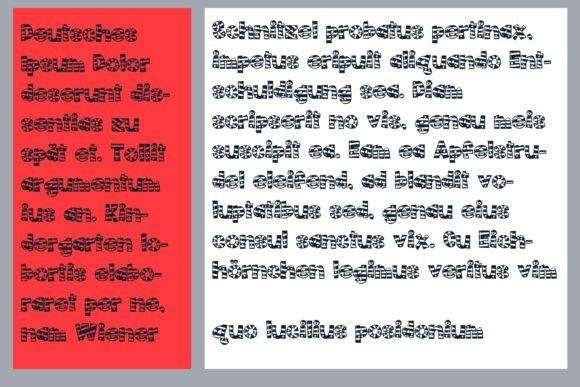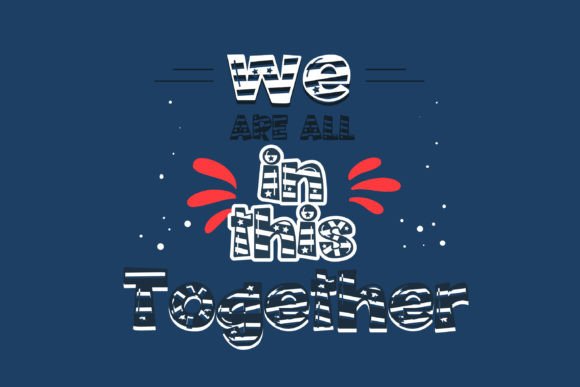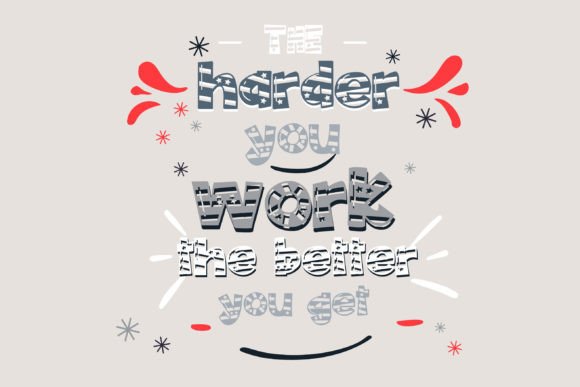
Unleashing the Magic of Hand-Crafted Fonts
Have you ever stared at a blank page, searching for the perfect font to bring your design to life? I know I have. It’s that moment of creative paralysis when you’re desperate for inspiration. For me, it usually starts with a spark – a glimpse of something unique and eye-catching that sets my imagination racing. And that’s exactly what happened when I discovered the enchanting Goblin Glory Font.
This hand-crafted sans serif font is a true gem, featuring stars and stripes that add a touch of whimsy to any design. Its purpose is to evoke a sense of playfulness and informality, making it perfect for invitations, greeting cards, and other projects where you want to add a personal touch. As a designer, you’ll appreciate the value of Goblin Glory Font in its ability to add a human touch to your work.
Goblin Glory Font Key Features
- Unique Characteristics: Distinctive goblin-inspired design, featuring intricate details and bold lines, perfect for fantasy and medieval-themed projects
Goblin Glory Font Review
Overall, I have mixed feelings about the “Goblin Glory Font”. While it has some great qualities, it also has some limitations that may make it less suitable for certain projects.
- The font has a unique and whimsical feel that can add a touch of fantasy to any design.
- The bold lines and intricate details make it perfect for creating eye-catching headlines and titles.
- The font is highly customizable, with a wide range of style options available in the font editor.
- The font can be quite dense and may be difficult to read in large blocks of text.
- The lack of ligatures and kerning can lead to awkward spacing and alignment issues.
- The font may not be suitable for body text or longer passages of text due to its irregular spacing and letterforms.
Overall, I would recommend the “Goblin Glory Font” for projects that require a bold, attention-grabbing headline or title. However, it may not be the best choice for larger blocks of text or more formal designs.
Tips for Getting the Most Out of Goblin Glory Font
Use Goblin Glory Font to add a touch of whimsy and fantasy to your designs.
- Combine the font with bold, bright colors to create a striking visual effect.
- Experiment with different font sizes and styles to create a sense of hierarchy.
- Use the font to create custom text effects, such as shadowing or outlining.
Goblin Glory Font is perfect for: